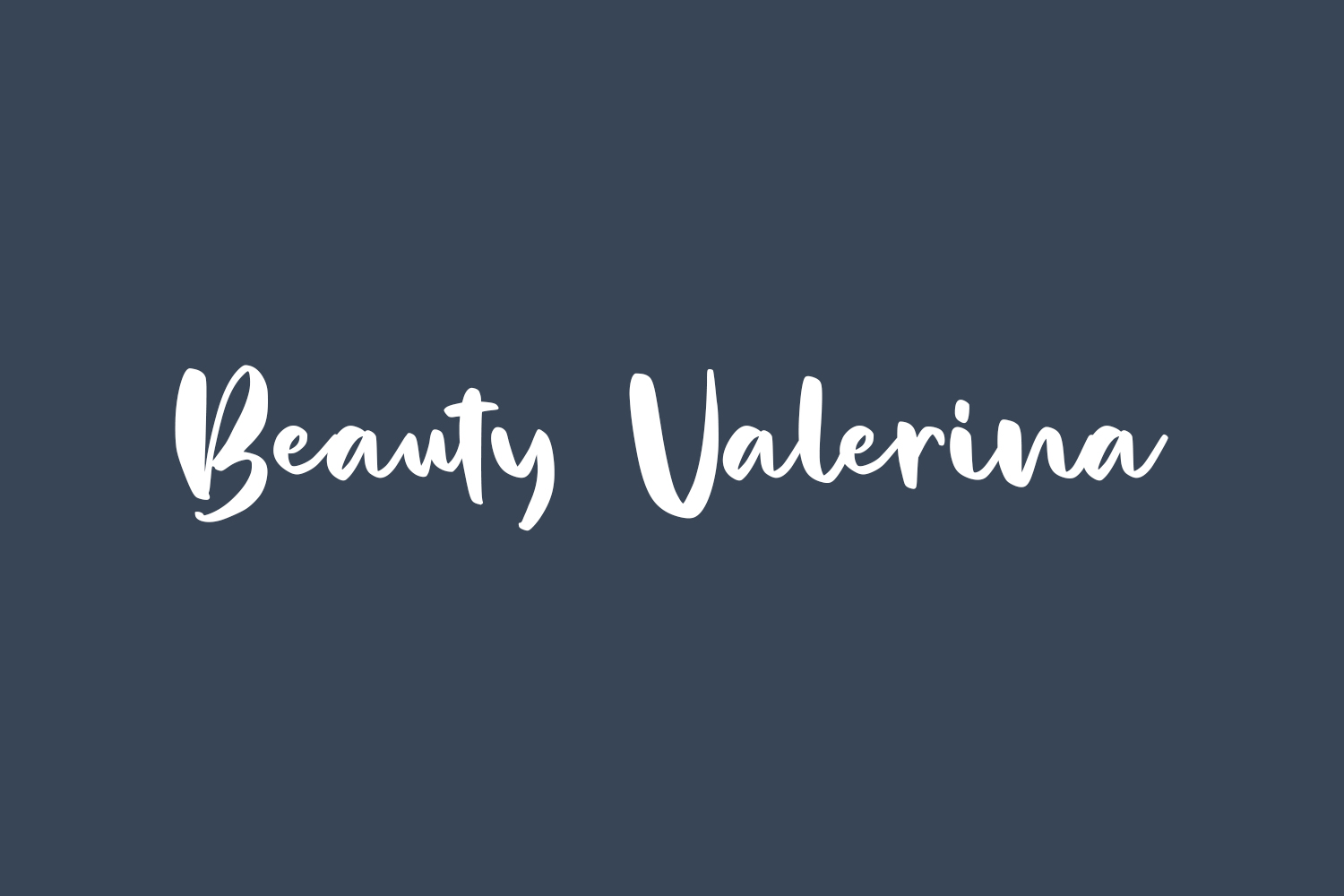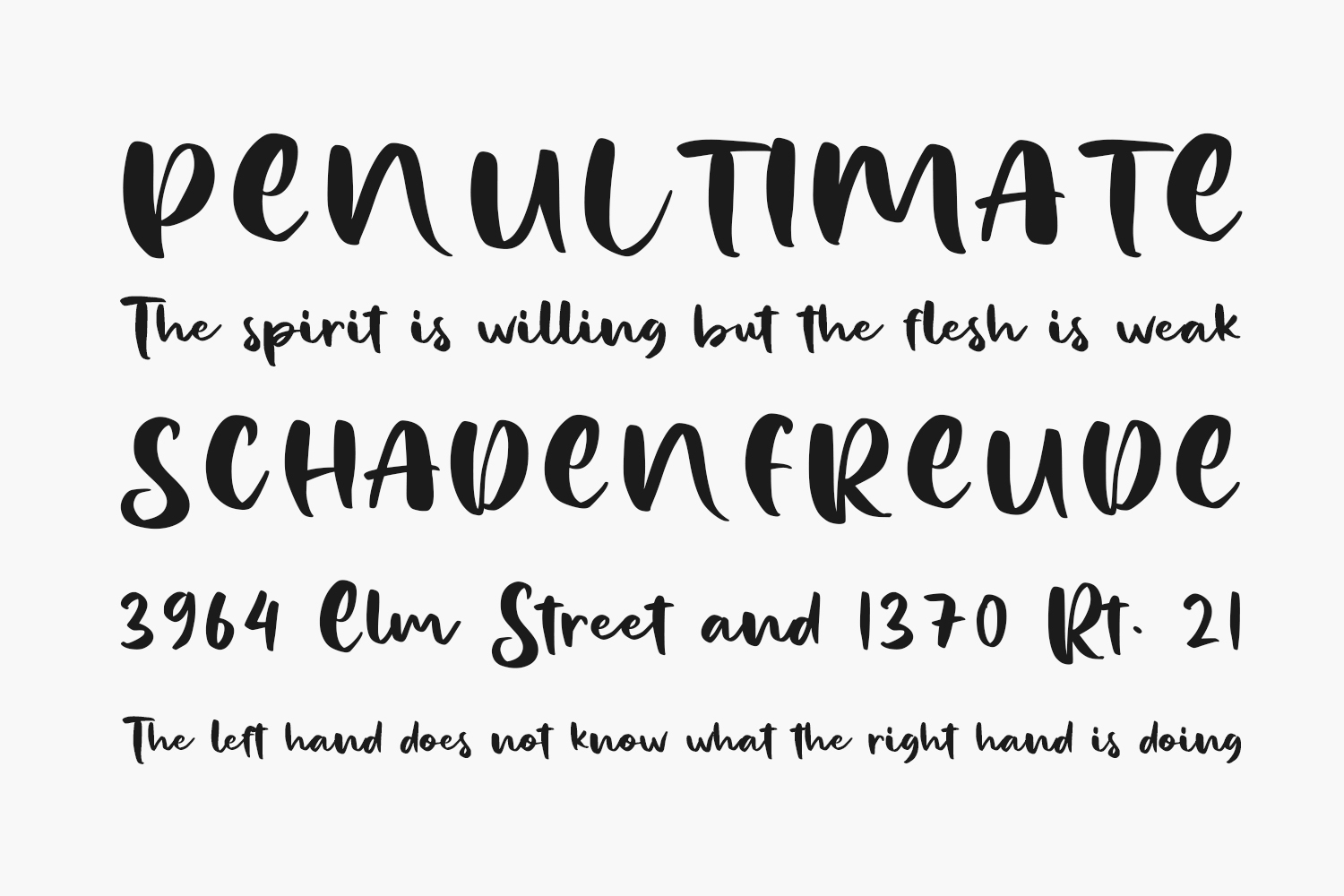
Beauty Valerina Free Font is an exquisite, handwritten font. It exudes grace and elegance. Its delicate strokes and flowing letterforms create a sense of beauty and sophistication. Letterforms make it an ideal choice for romantic invitations, feminine branding, and other elegant projects. Whether you want to add a touch of sophistication to your designs or create an atmosphere of romance, Beauty Valerina Free Font is the perfect font for you.